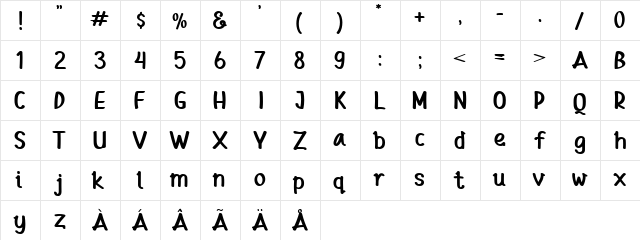
PAINTLOVA V1 - Demo Regular
| Designer | Galih Suistya Aji |
PAINTLOVA V1 - Demo is a composed and adaptable typeface that performs quietly and consistently across a wide range of design contexts.